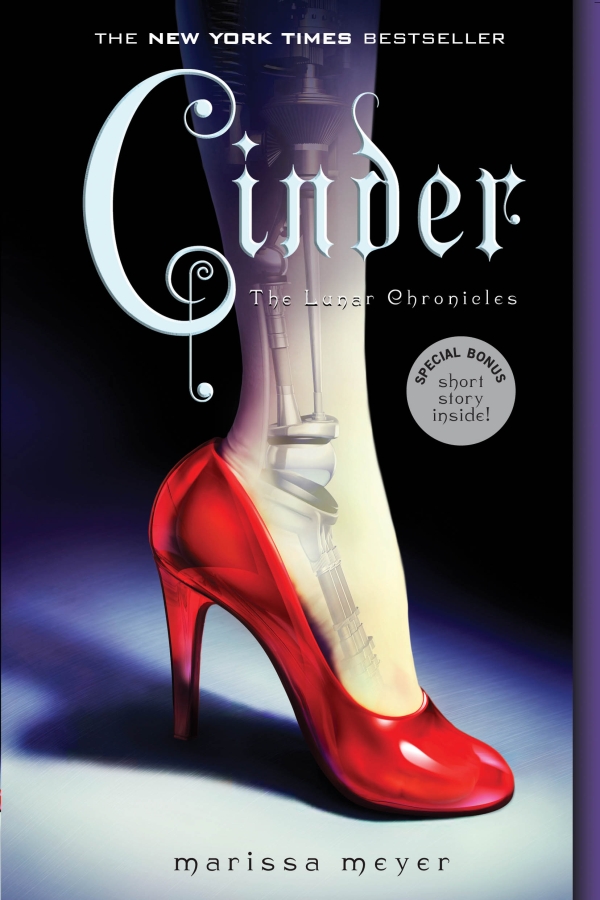
Cinder Font
BookCinder is a science fiction novel by Marissa Meyer and is the first book in the Lunar Chronicles series. It retells the classic fairytale Cinderella, set in a futuristic society where humans and cyborgs coexist.
The Cinder title on the cover uses a neogothic typeface called Aeronaut created by Georg Herold-Wildfellner in 2009. The author's name and the “The Lunar Chronicles” part are set in Huron by Dan X. Solo.